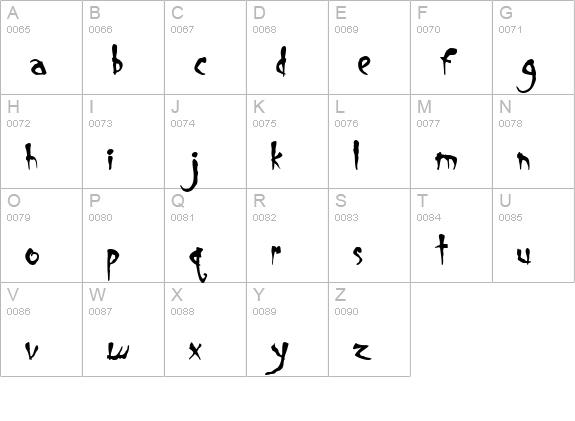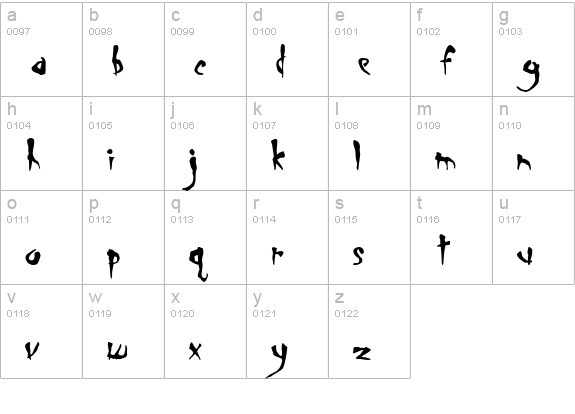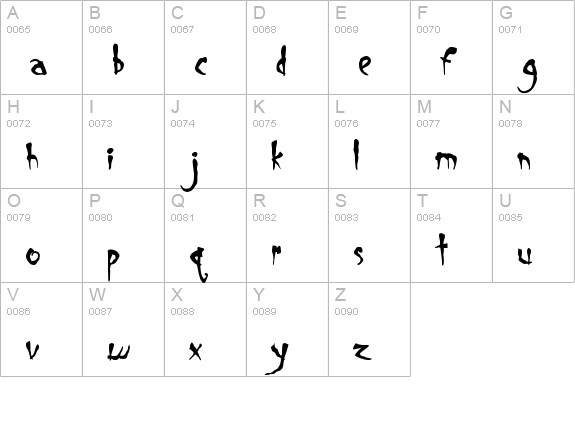
Smegalomania Font Details
Introducing Smegalomania, a captivating and eccentric font that will add a touch of whimsy to any design project. With its unique and playful appearance, Smegalomania is sure to catch the eye and leave a lasting impression. This free font is perfect for those looking to add a quirky and imaginative twist to their creative endeavors. Whether you're designing a poster, logo, or website, Smegalomania's unconventional letterforms will inject personality and charm into your work. The captivating curves and unexpected angles of Smegalomania make it a font that stands out from the crowd. Its distinctive style is bound to captivate and engage your audience, leaving them curious and wanting more. But what truly sets Smegalomania apart is its availability as a free download. You can easily access this font at FontsMarket.com, where it is freely available for your creative enjoyment. Say goodbye to the limitations of expensive fonts and embrace the freedom of Smegalomania. So, whether you're a professional designer or an enthusiastic hobbyist, Smegalomania is the perfect font for those who dare to be different. Download it now and let your imagination run wild with this whimsical and captivating typeface.